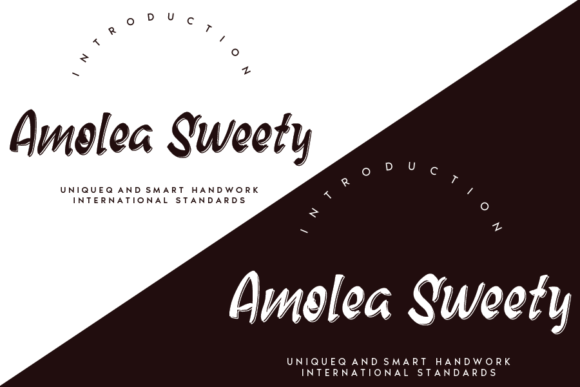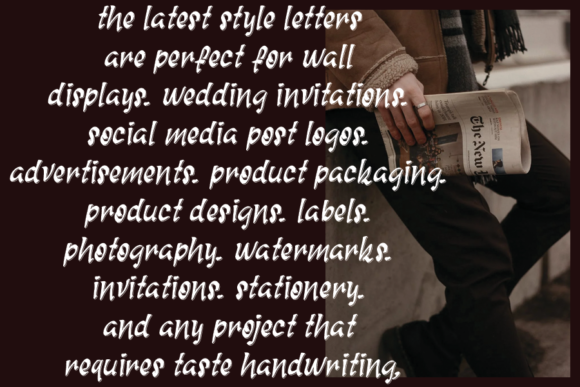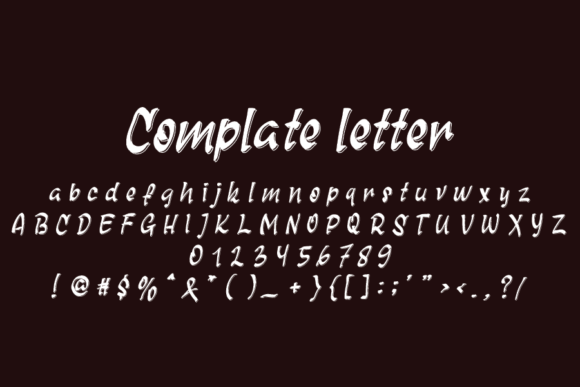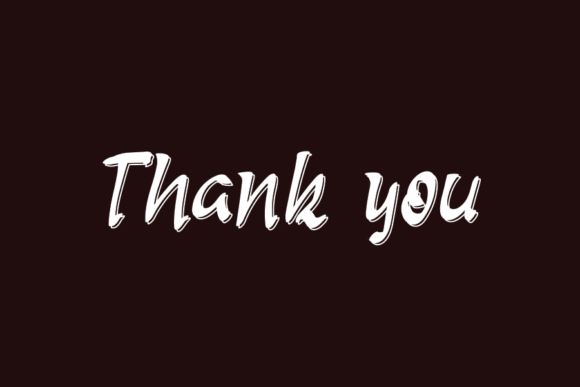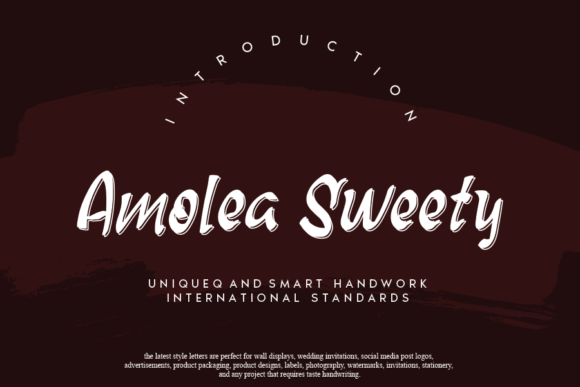
Introducing Amolea Sweety Font: The Perfect Blend of Casual Charm and Versatility
Are you on the hunt for a display font that exudes a carefree and down-to-earth vibe? Look no further than Amolea Sweety! This beautifully handcrafted font is designed to capture the hearts of designers and crafters alike with its unique blend of casual charm and versatility. In this article, we’ll dive into the wonderful world of Amolea Sweety, exploring its features, uses, and the magic that makes it a standout in the world of typography.
The Making of Amolea Sweety: A Labor of Love
Amolea Sweety is more than just a font – it’s a labor of love. Carefully crafted by skilled designers, this font boasts a distinctive character that sets it apart from the rest. Its casual charm is perfectly balanced with readability, making it an excellent choice for a wide range of design projects. Whether you’re working on a logo, a headline, or a full-scale branding campaign, Amolea Sweety is sure to impress.
What Makes Amolea Sweety So Special?
So, what makes Amolea Sweety such a great display font? Here are just a few of its standout features:
• Casual Charm: Amolea Sweety’s unique character is infused with a carefree, laid-back vibe that’s perfect for designs that need a friendly touch.
• Readability: Despite its casual nature, Amolea Sweety remains highly readable, even at smaller sizes.
• Versatility: This font is incredibly versatile, making it suitable for use in a wide range of design contexts, from busy backgrounds to standalone headlines.
Using Amolea Sweety in Your Designs
Amolea Sweety is an incredibly versatile font that can be used in a variety of design contexts. Here are just a few ideas to get you started:
• Headlines and Titles: Amolea Sweety’s bold, eye-catching character makes it perfect for use in headlines and titles.
• Logos and Branding: This font’s unique character and casual charm make it an excellent choice for logos and branding projects.
• Posters and Flyers: Amolea Sweety’s readability and versatility make it a great choice for posters and flyers.
• Digital Media: This font is also well-suited for use in digital media, including social media graphics, website headers, and more.
Tips and Tricks for Getting the Most Out of Amolea Sweety
To get the most out of Amolea Sweety, here are a few tips and tricks to keep in mind:
• Experiment with Colors: Amolea Sweety looks great in a variety of colors, so don’t be afraid to experiment and find the perfect hue for your design.
• Play with Texture: This font’s casual charm pairs perfectly with texture, so try adding a subtle texture to your design for added depth.
• Mix and Match: Amolea Sweety can be paired with a variety of other fonts to create a unique and eye-catching design.
Amolea Sweety is a truly exceptional display font that’s sure to capture the hearts of designers and crafters alike. Its unique blend of casual charm and versatility makes it perfect for a wide range of design projects, from logos and branding to posters and digital media. With its readability, versatility, and eye-catching character, Amolea Sweety is sure to become a true favorite in your design toolkit. So why wait? Download Amolea Sweety today and start creating stunning designs that are sure to impress!